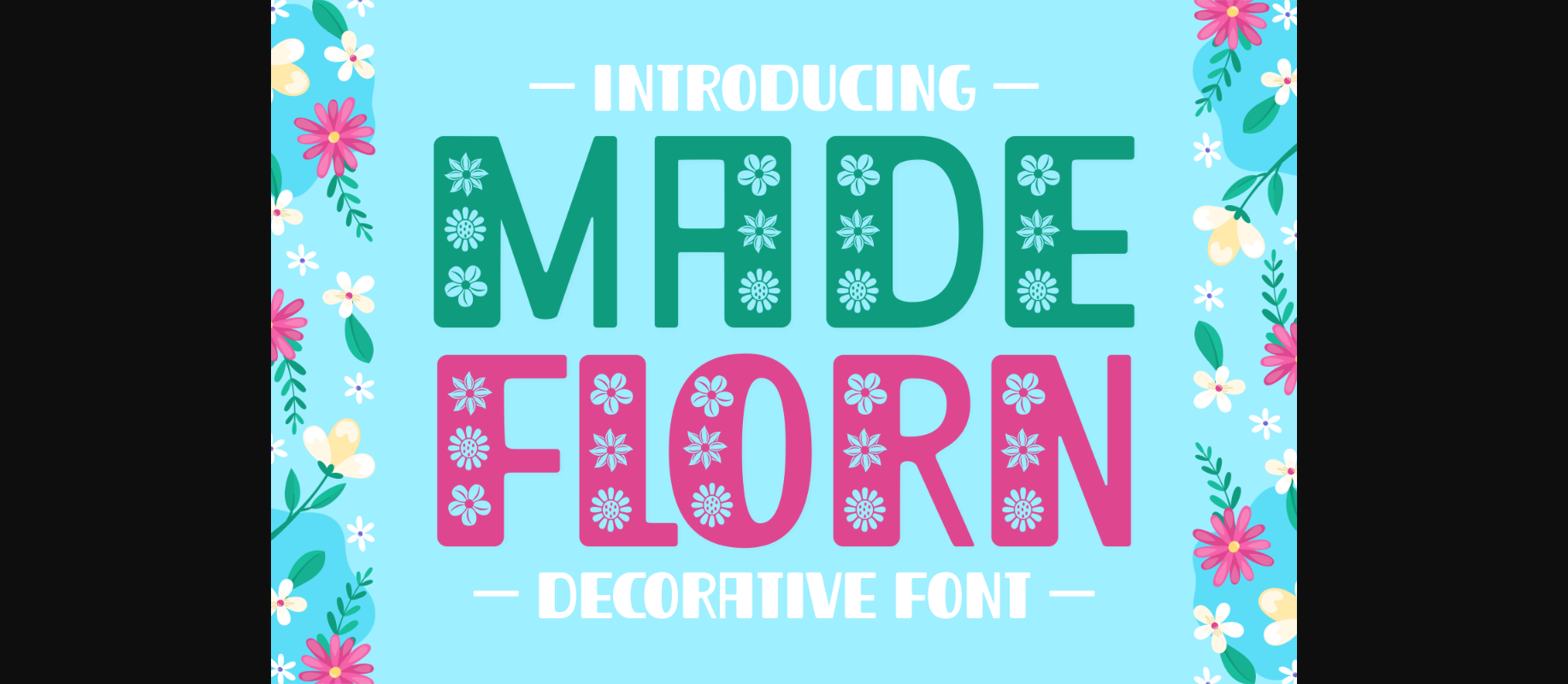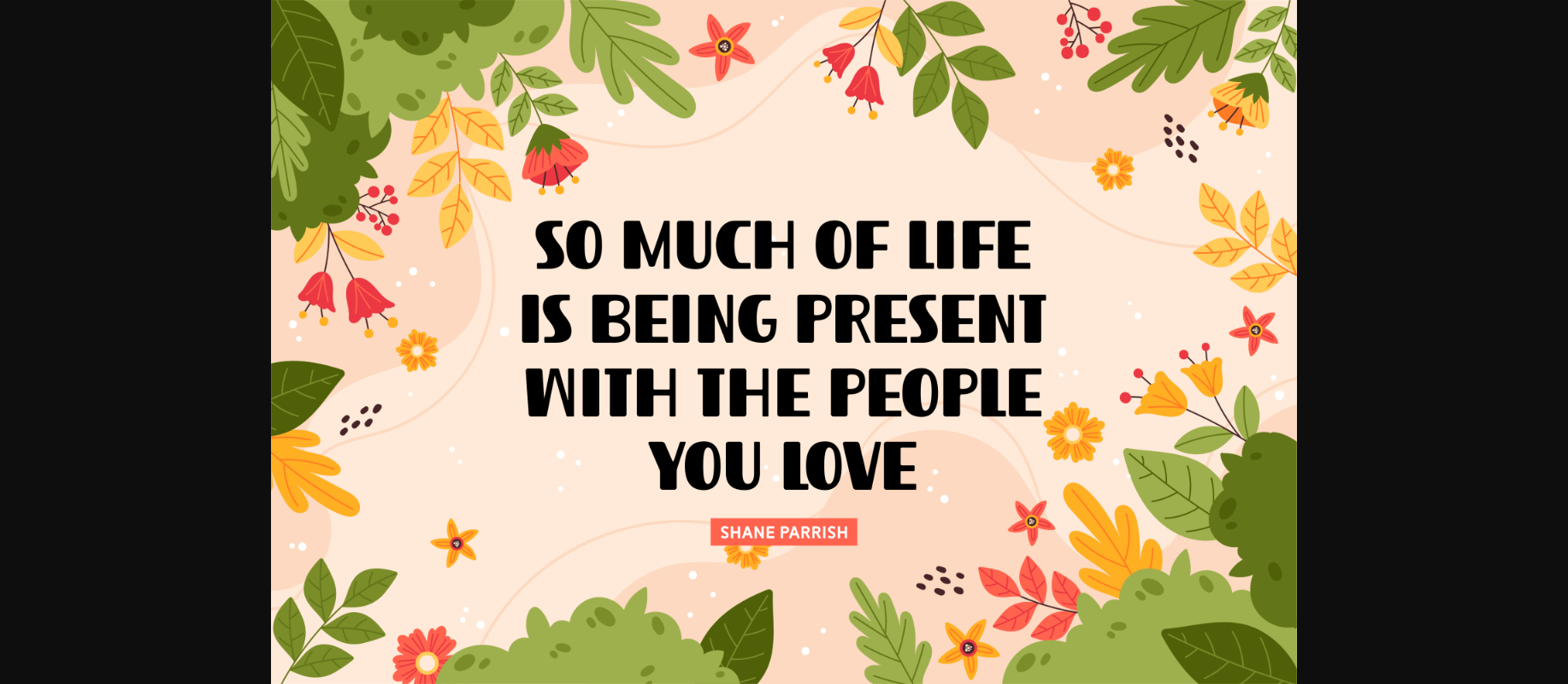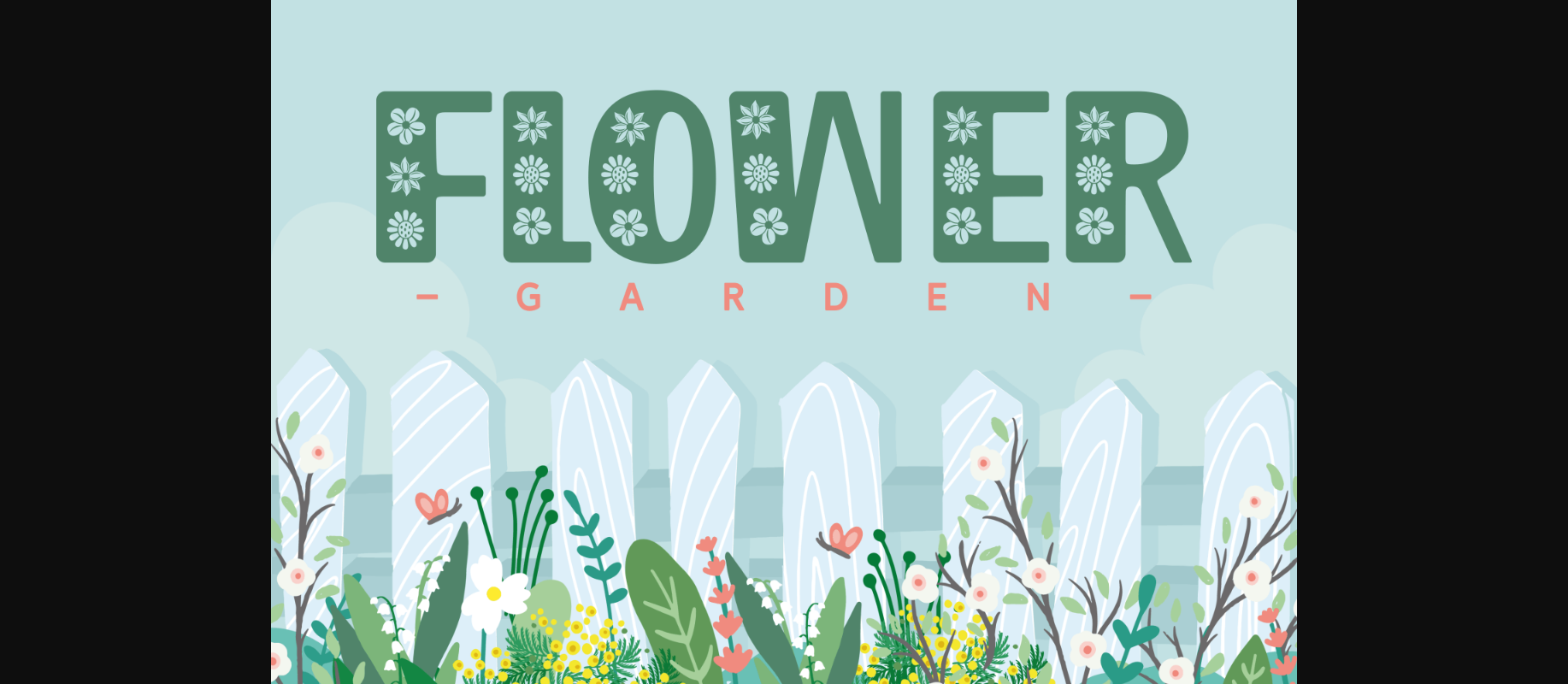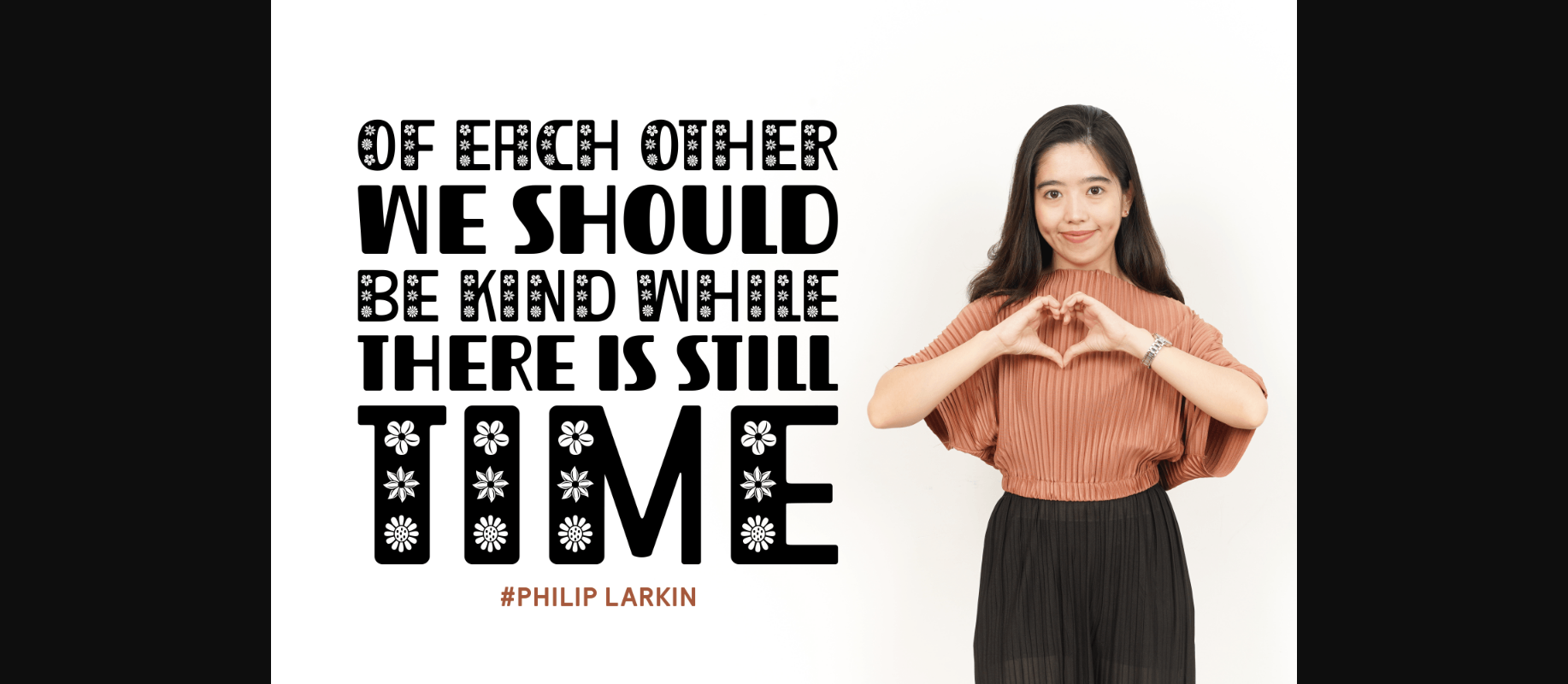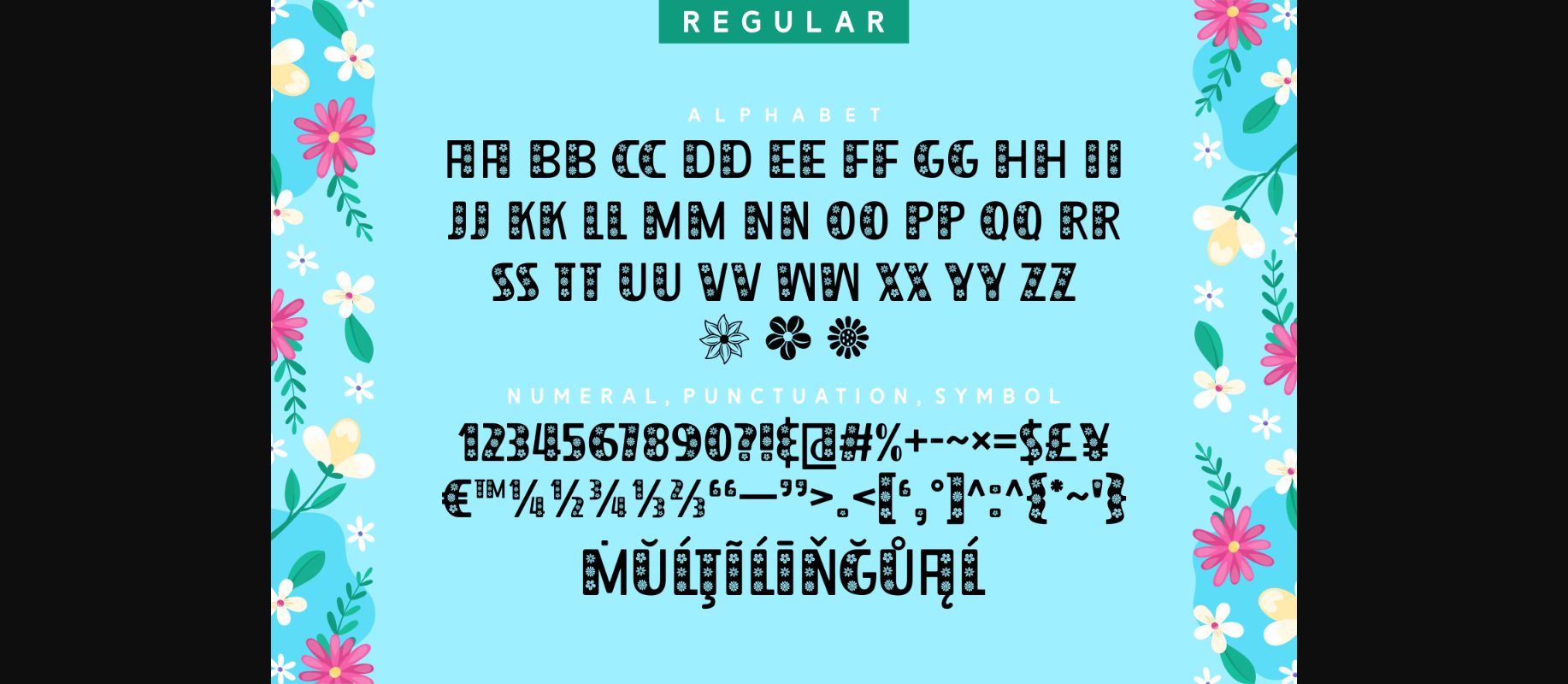
About Made Florn Font
Made Florn is a stunning floral decorative font. With its graceful flower features, this typeface will perfectly complement your spring-themed projects and more! Use it for greeting cards, fabric prints, crafts, decorations, quotes, logos, and many more. It includes two versions β solid and regular.